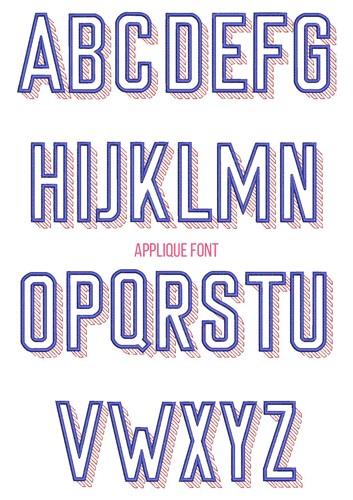
Embryla Shadow Font Embroidery Font - Shadow Applique Style - 5 Sizes: 3", 4", 5", 6", 7" - PES, DST & 7 formats by Maya Kreations and other embroidery fonts available at EmbroideryDesigns.com.
Maya Kreations is happy to present Embryla Shadow Font Embroidery Font - Shadow Applique Style - 5 Sizes: 3", 4", 5", 6", 7" - PES, DST & 7 formats machine embroidery font which has Bold shadow applique machine embroidery font ideal for home décor projects on cushions and wall hangings. Showcase the vibrant 'FONT' design with a playful striped pattern. Available in PES, DST, and 7 other formats. included. If you would like to view more embroidery fonts and alphabets please search our embroidery fonts page.